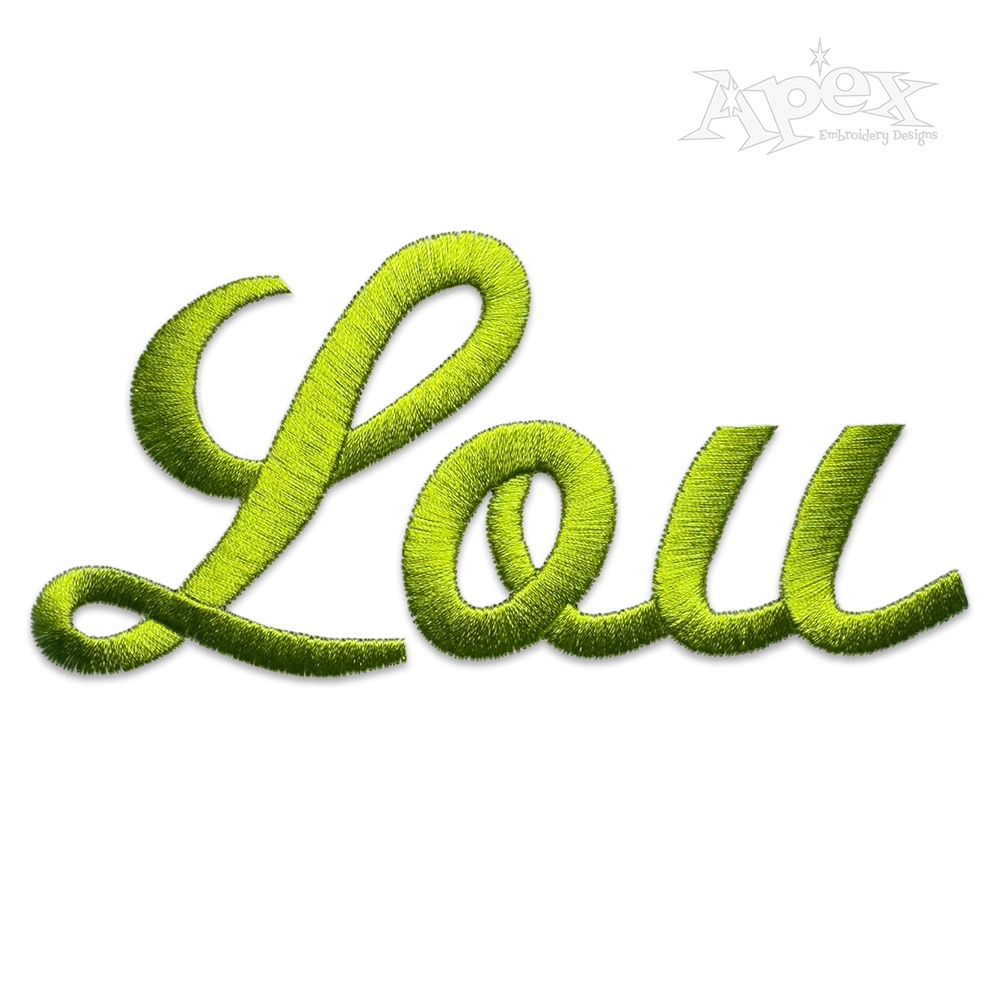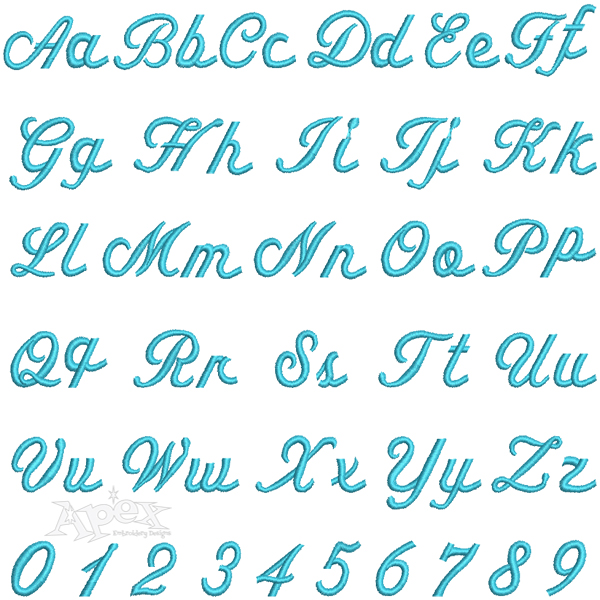
Alabama Script Embroidery Fonts
Sunlight illuminates worktable while needles trace dancing contours. Alabama Script captures pure childhood exuberance through fluid, looping calligraphy. Every letterform springs forward with buoyant warmth, turning plain textiles into joyful keepsakes. Digitized curves balance whimsical freedom with uncompromising stitch integrity, bringing celebratory sweetness to custom monogramming projects.
Complete font collection provides uppercase letters, lowercase letters, and numbers. Scaled proportions ensure flawless stitching across three versatile sizes:
- 1" (25mm): Ideal for compact shirt collars, delicate cuffs, baby bodysuits, and smaller monogramming needs.
- 2" (50mm): Perfect for tote pockets, children's outerwear, festive bibs, and bath linens.
- 3" (75mm): Best for statement pillows, center-chest designs, tote bags, and prominent heirloom embroidery.
Project Ideas for Alabama Script Embroidery Fonts
Lively letterforms transform everyday essentials into cherished bespoke treasures:
- Heirloom Bedding & Nursery Accents: Stitch names across quilted baby blankets, crib skirts, and childhood memory pillows.
- Luxury Table Linens: Embroider playful single-initial monograms on linen cocktail napkins for casual garden parties.
- Bespoke Resort Wear & Robes: Personalize bridal party coverups, terrycloth wraps, and sun-drenched holiday garments.
- Boutique Accessories: Embellish heavy canvas totes, school backpacks, and sun hats with durable, vibrant embroidery.
- Personalized Gifting: Create memorable birthday shirts, newborn bodysuits, and customized holiday keepsakes.
Strategic placement maximizes visual rhythm across garments and home textiles:
- Corner Diagonal: Angle monograms across hem corners of linen cocktail napkins and plush swaddle blankets.
- Center Chest: Position bold names across children's rompers, holiday sweatshirts, and youth denim jackets.
- Cuff & Hem: Add subtle personal details along sleeve cuffs or lower edges of bridal robes.
- Border Alignment: Run playful phrases parallel to towel borders or along tote bag pockets.
Alabama Script Embroidery Fonts Craft & Letterform Details